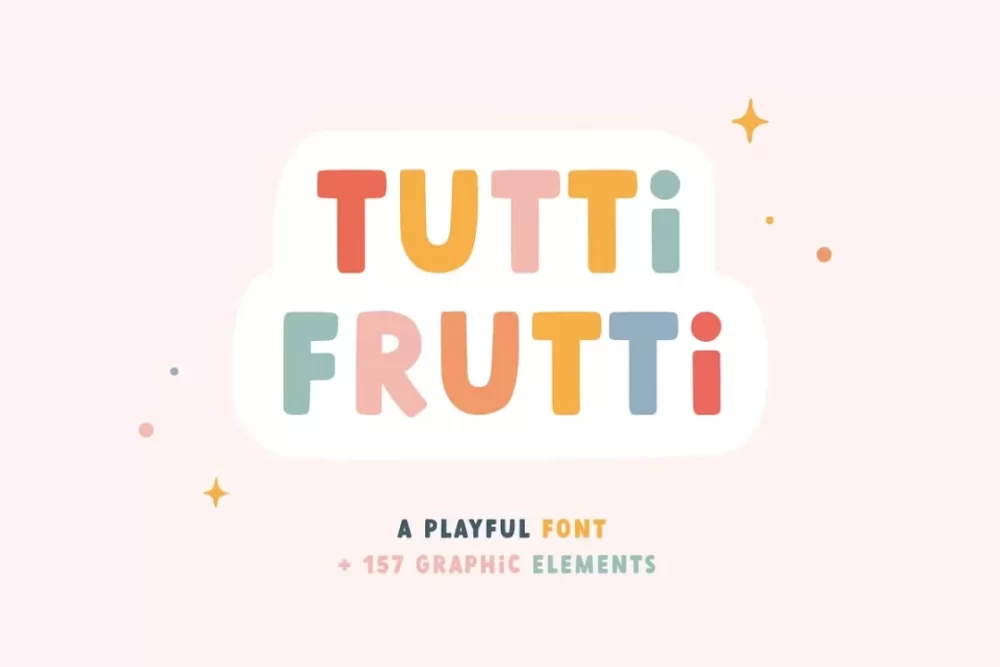
Tutti Frutti is a super fun and playful, hand-lettered bold typeface with a bubbly character. Perfect for children’s book covers, greeting cards, invitations, and casual branding. It will also add a touch of whimsy to social media graphics, posters, and web design.